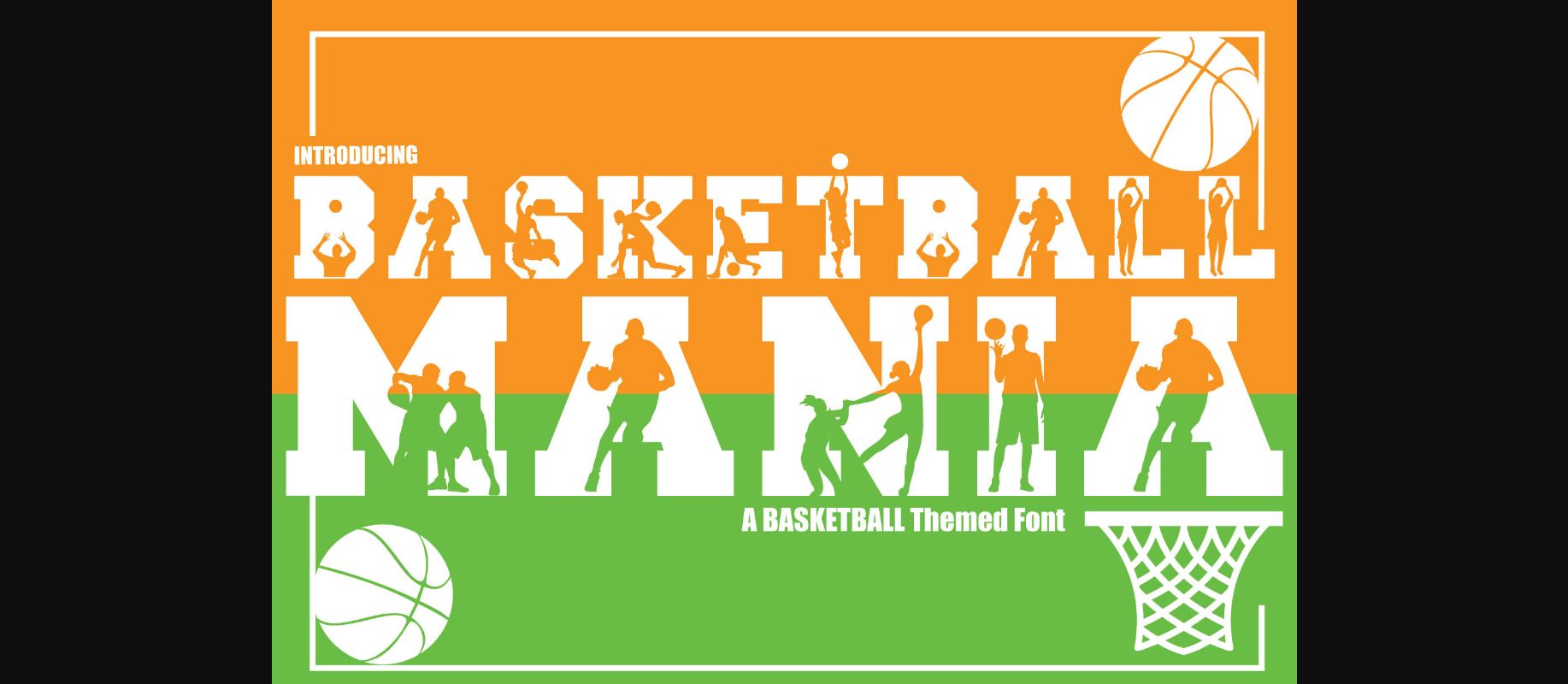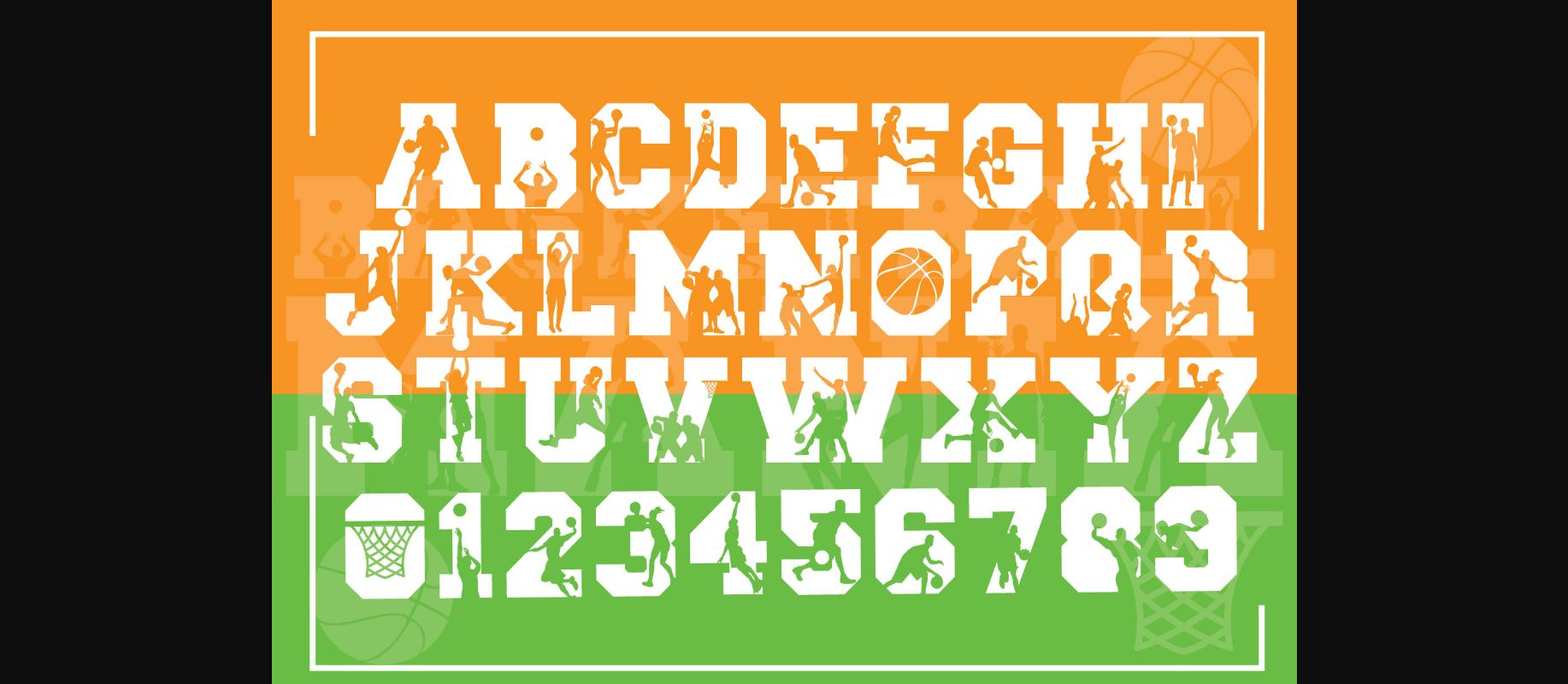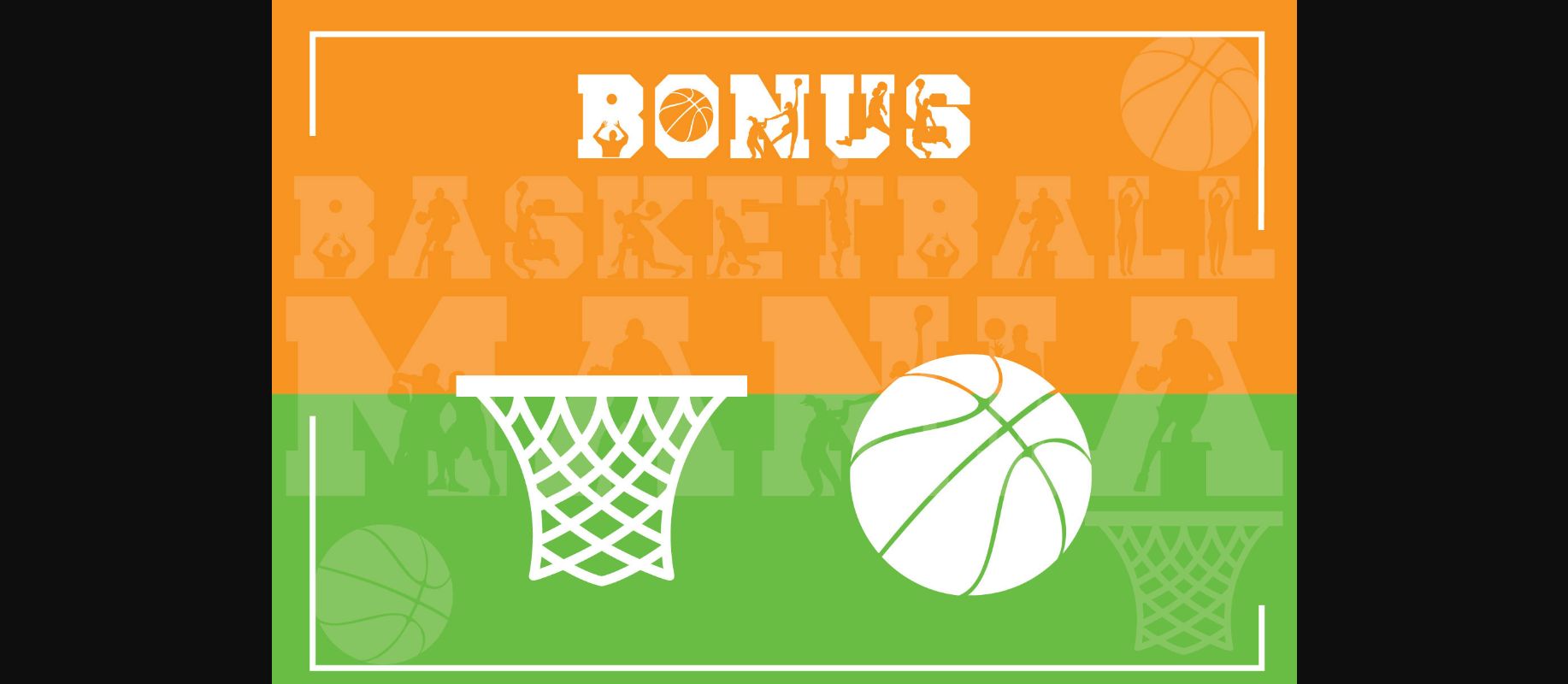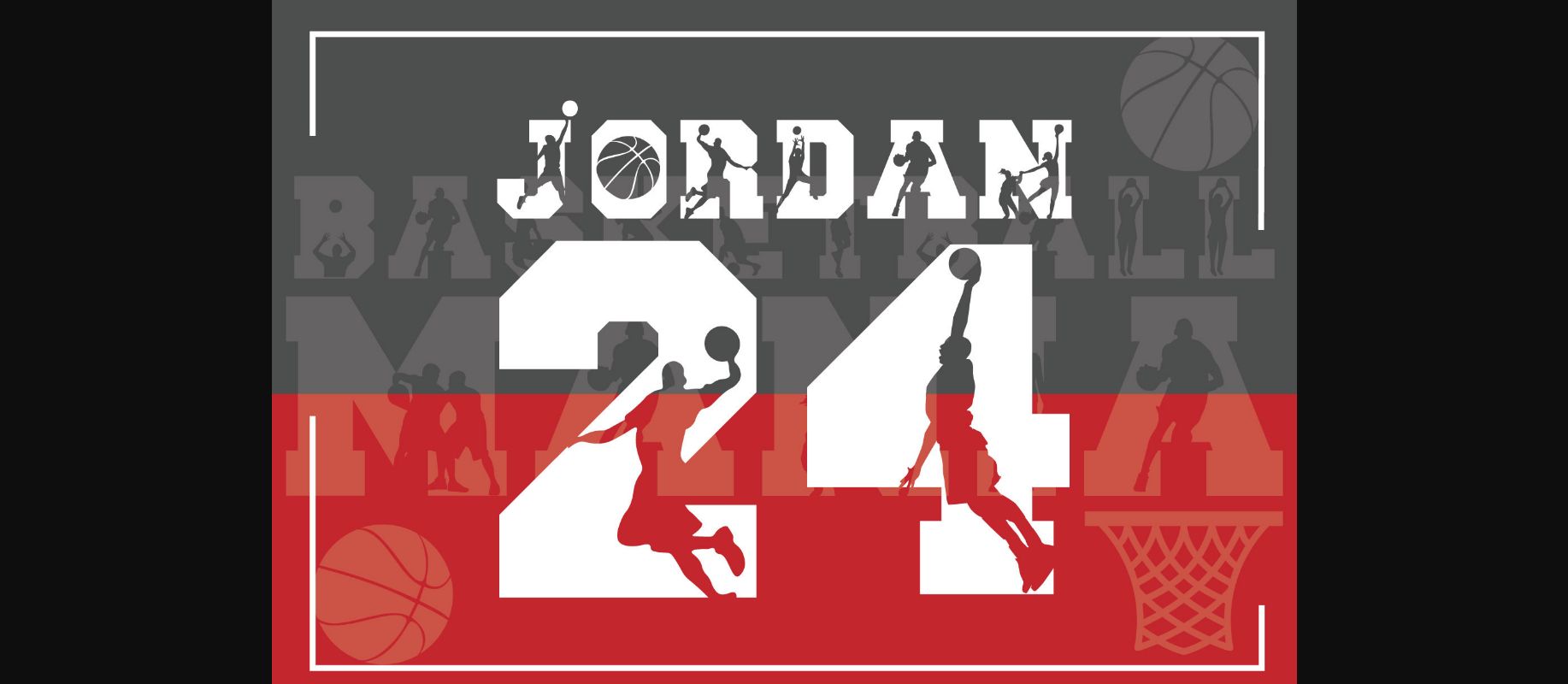
About Basketball Mania Font
Basketball Mania is a cool and bold decorative font. Add it to each of your designs related to basketball and you will love the outcome.